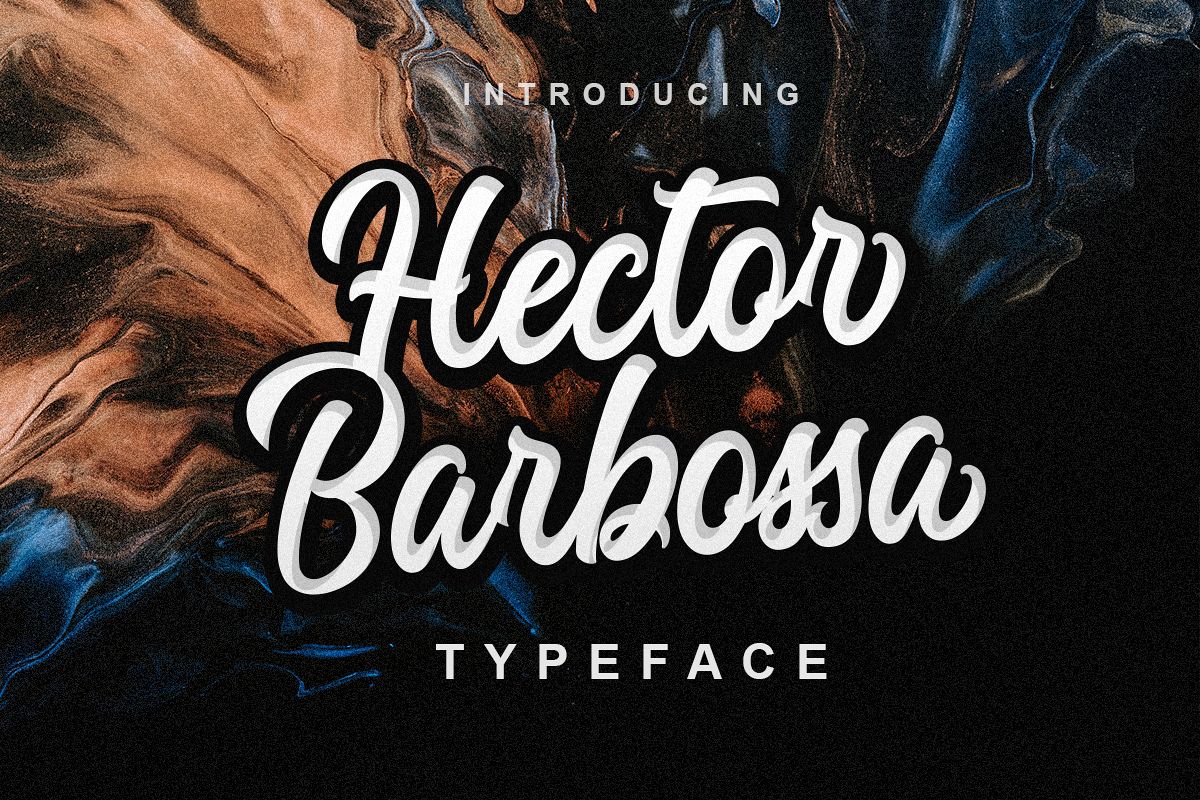
Hector Barbossa
A casual script typeface and combination with Hand Lettering style was created to help you designing brand of yours own or your client, and you also can use it for a logotype, product designs, label, watermark, social media posts, apparel, invitation, signboard, sport club, motor/car